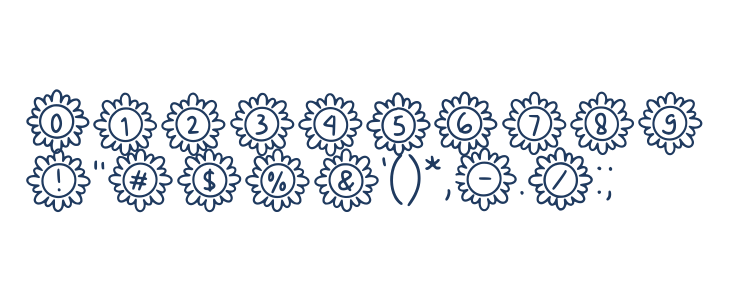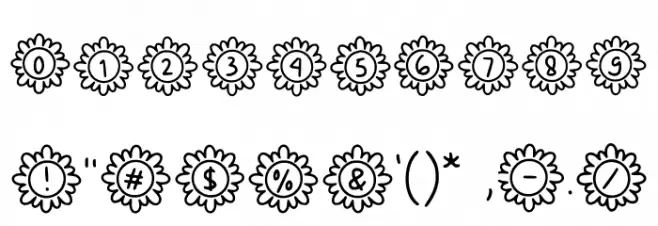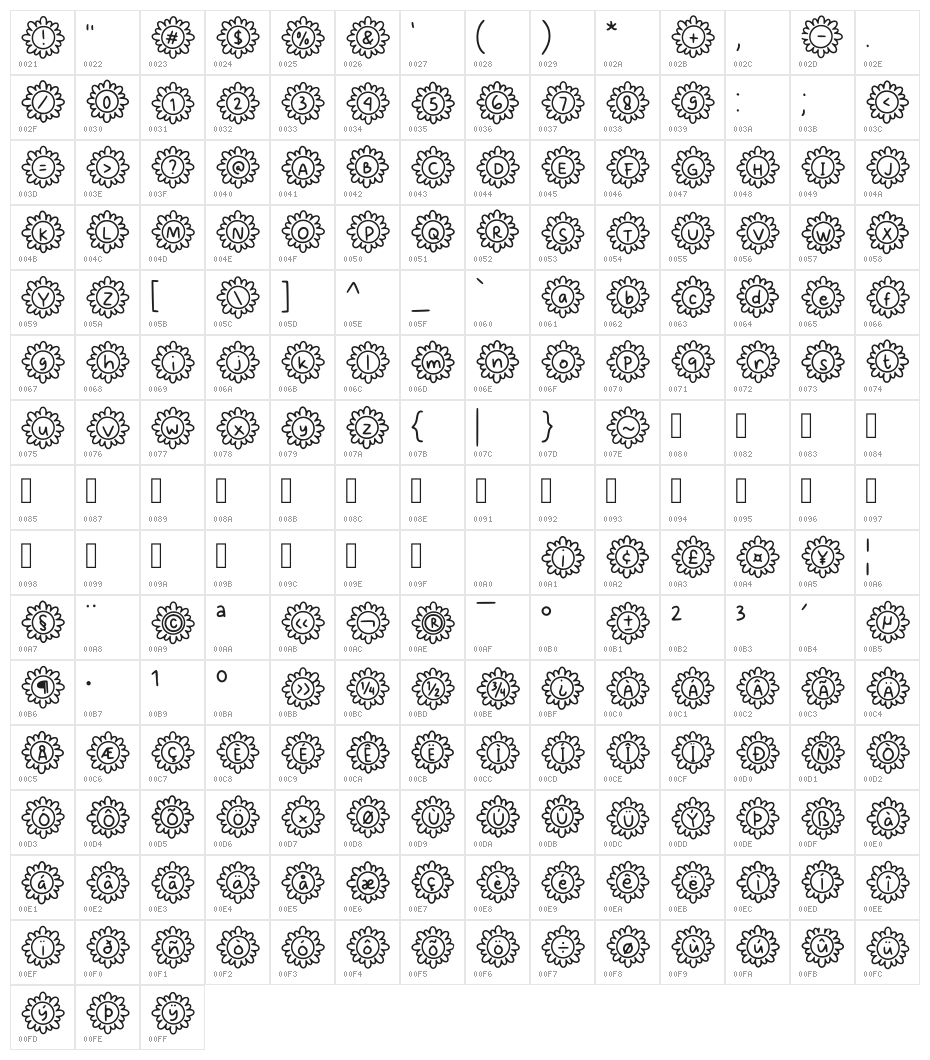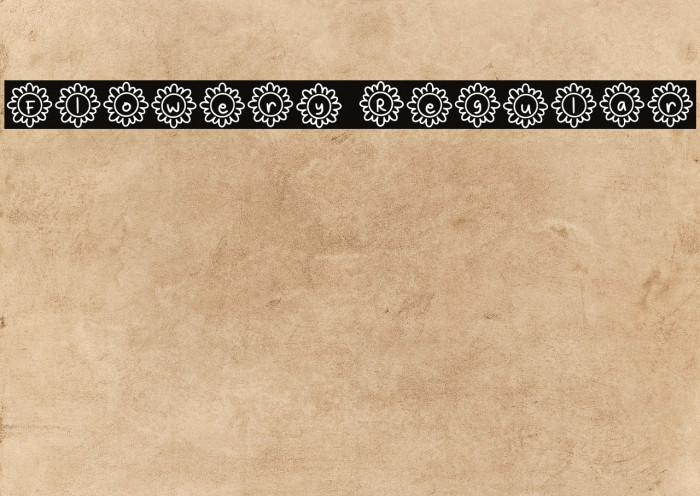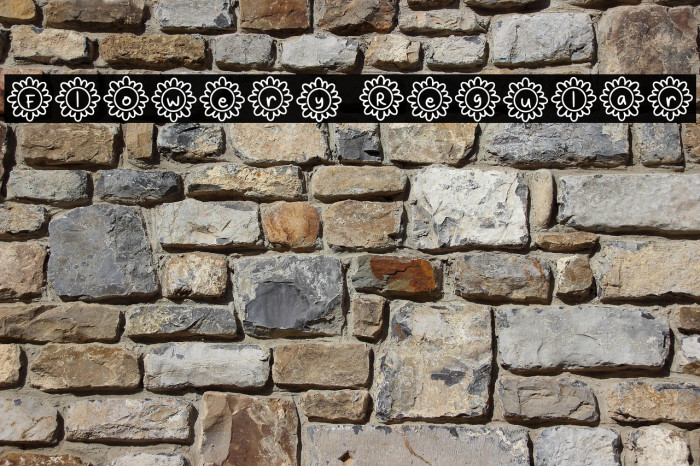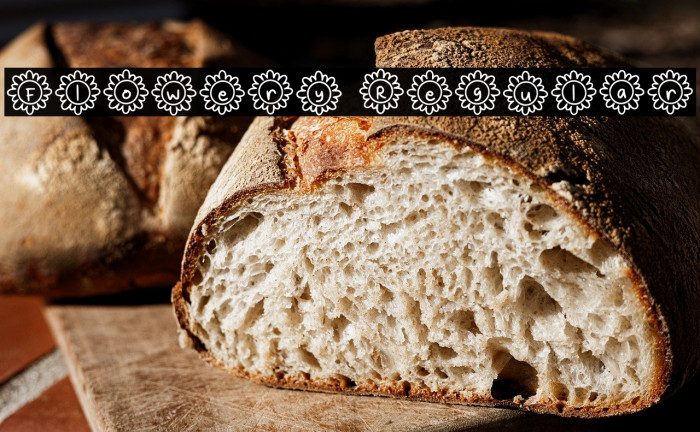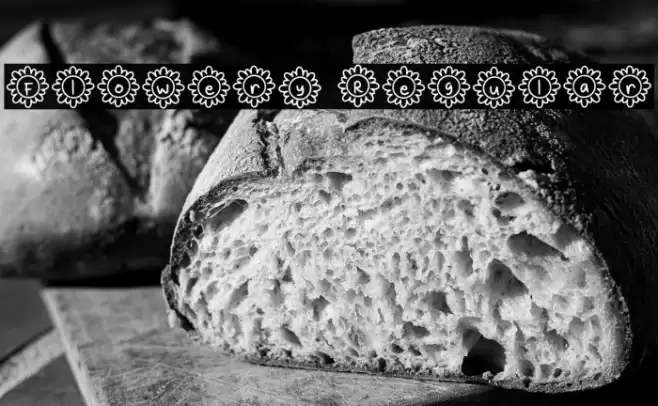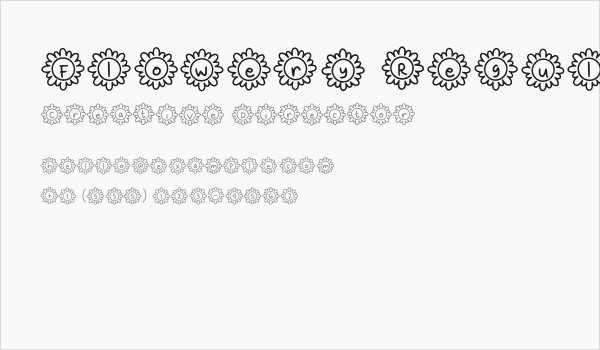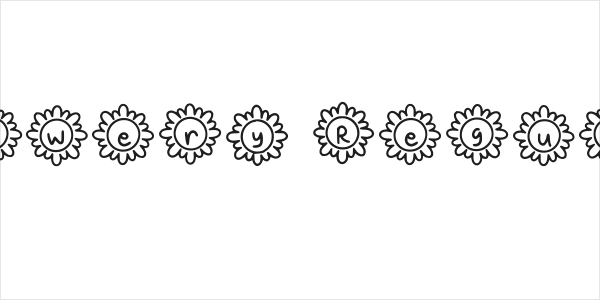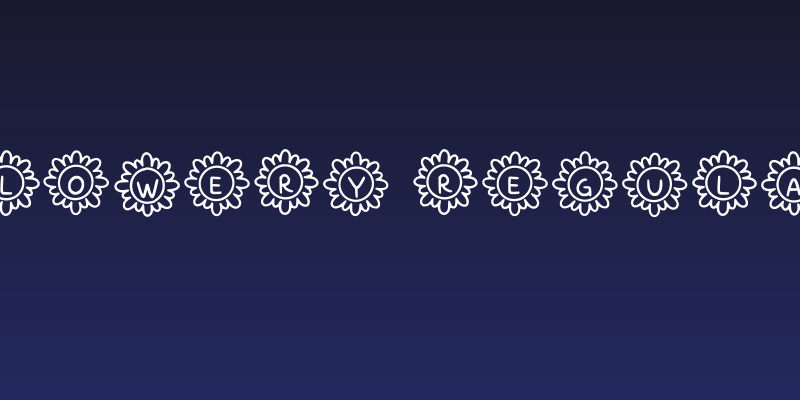
Flowery Regular Font
Flowery Regular Description
This whimsical and decorative font features each character encased in a stylized flower shape, creating a playful and unique appearance. The letters are simple and rounded, providing a clear contrast against the intricate floral background. This design adds a touch of nature-inspired charm and is perfect for projects that require a fun and lighthearted aesthetic. The consistent floral motif across all characters, including numbers and special symbols, ensures a cohesive look. The font's playful nature makes it ideal for creative projects, children's materials, and any design that aims to evoke joy and creativity.
| Proposed Projects | Ideal for children's books, greeting cards, party invitations, and playful branding. |